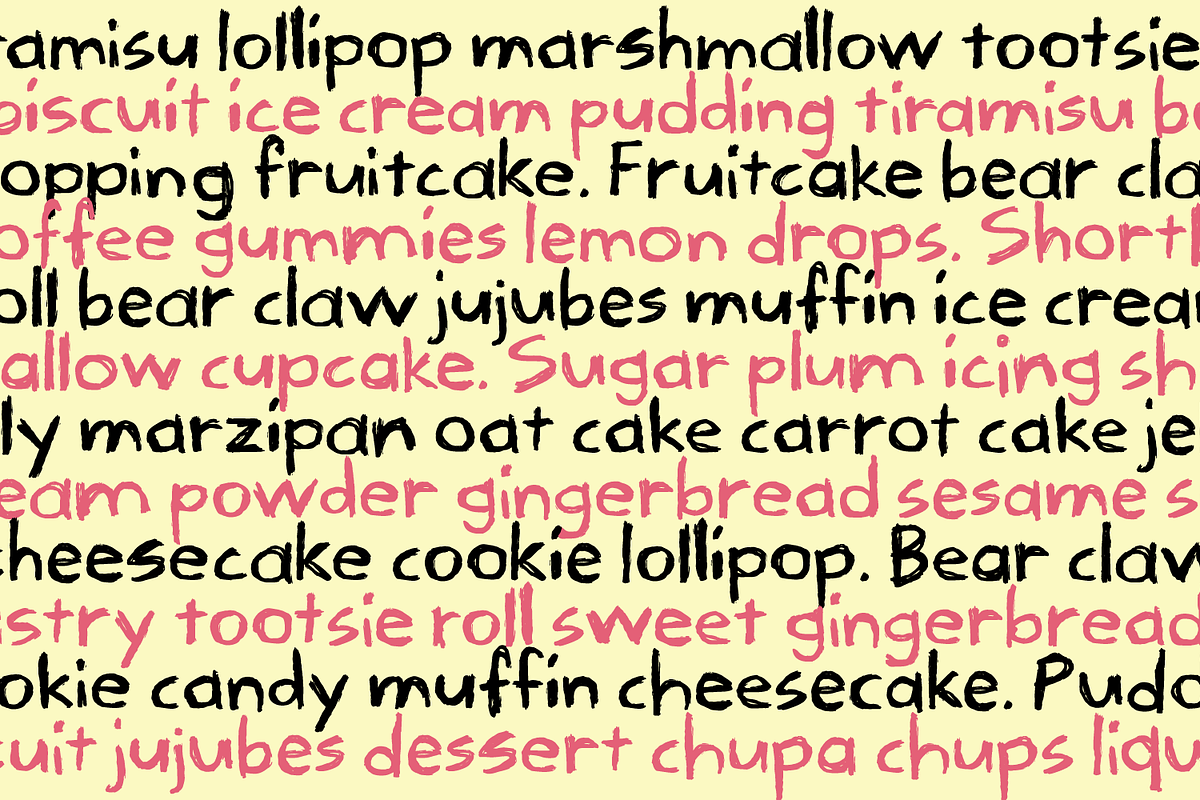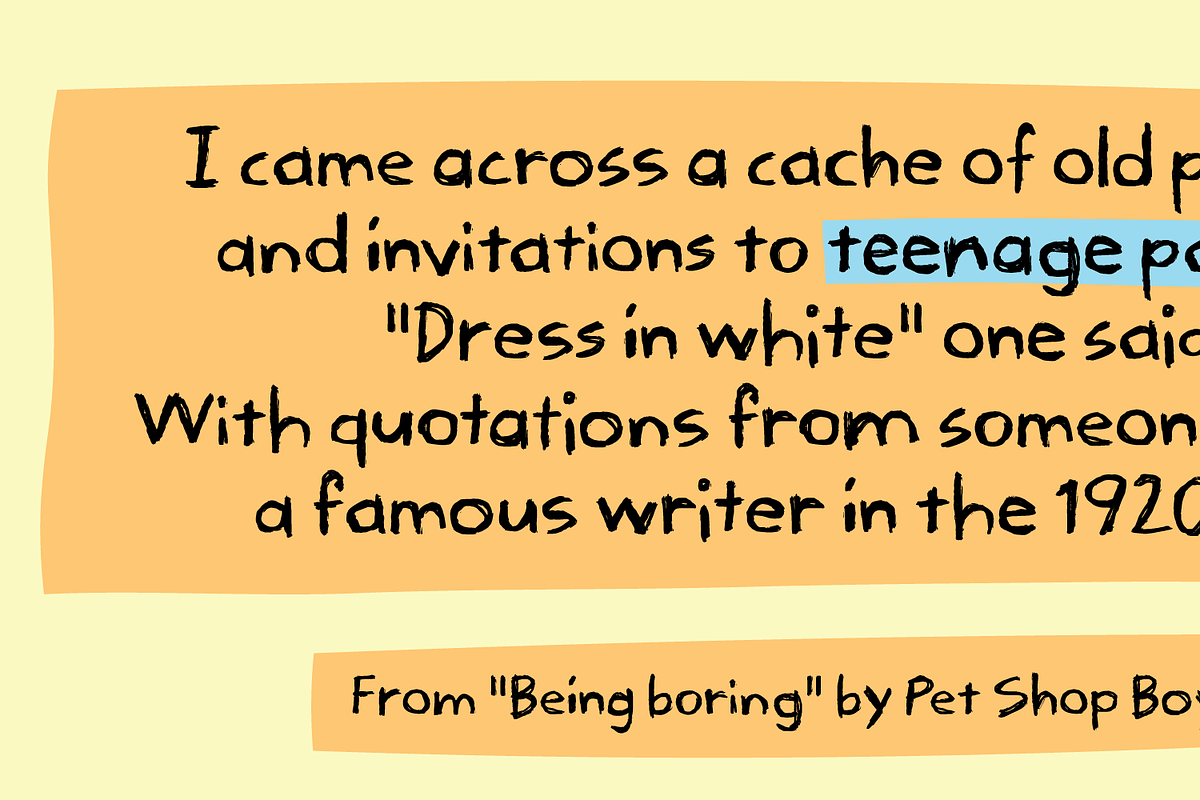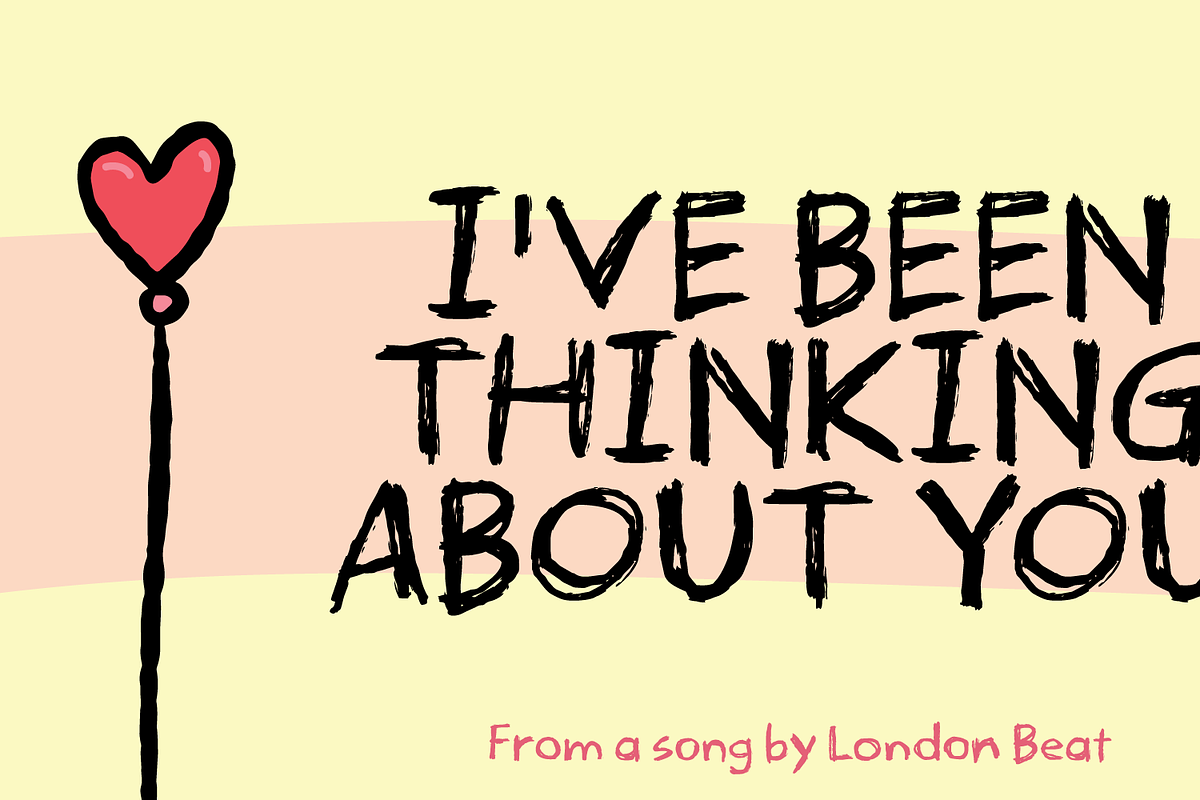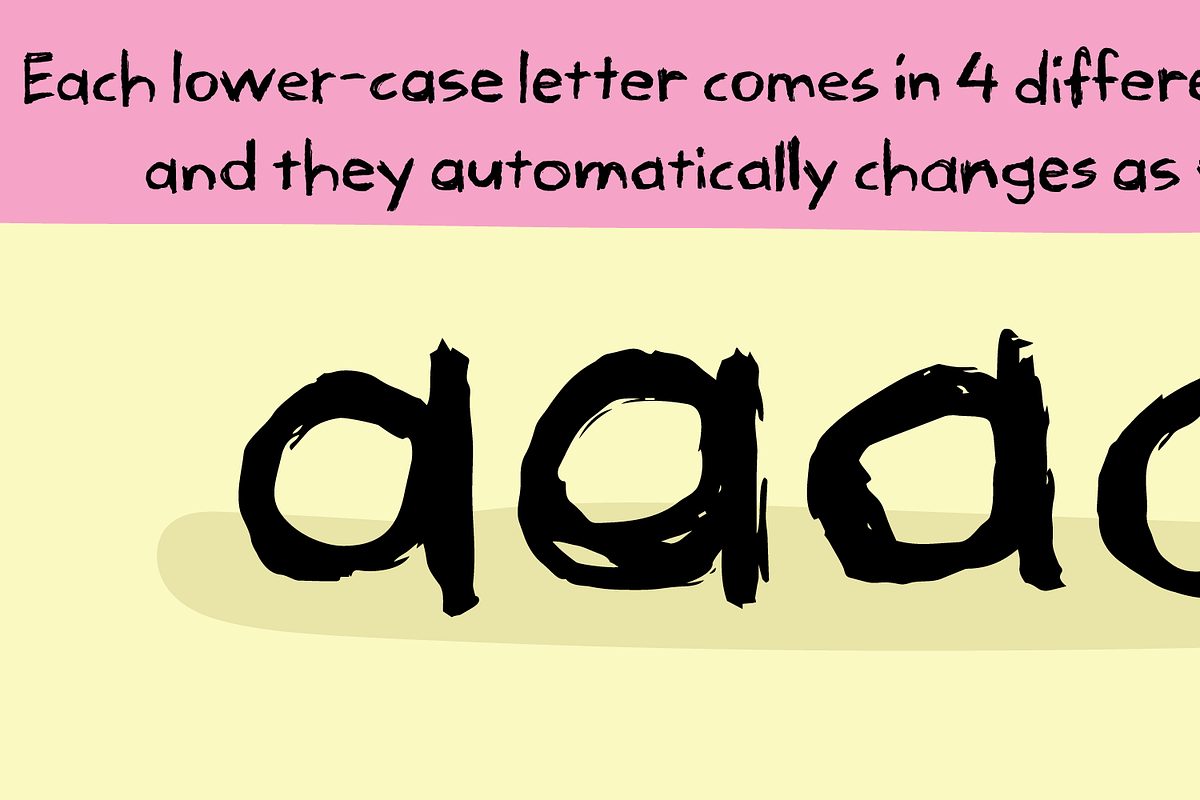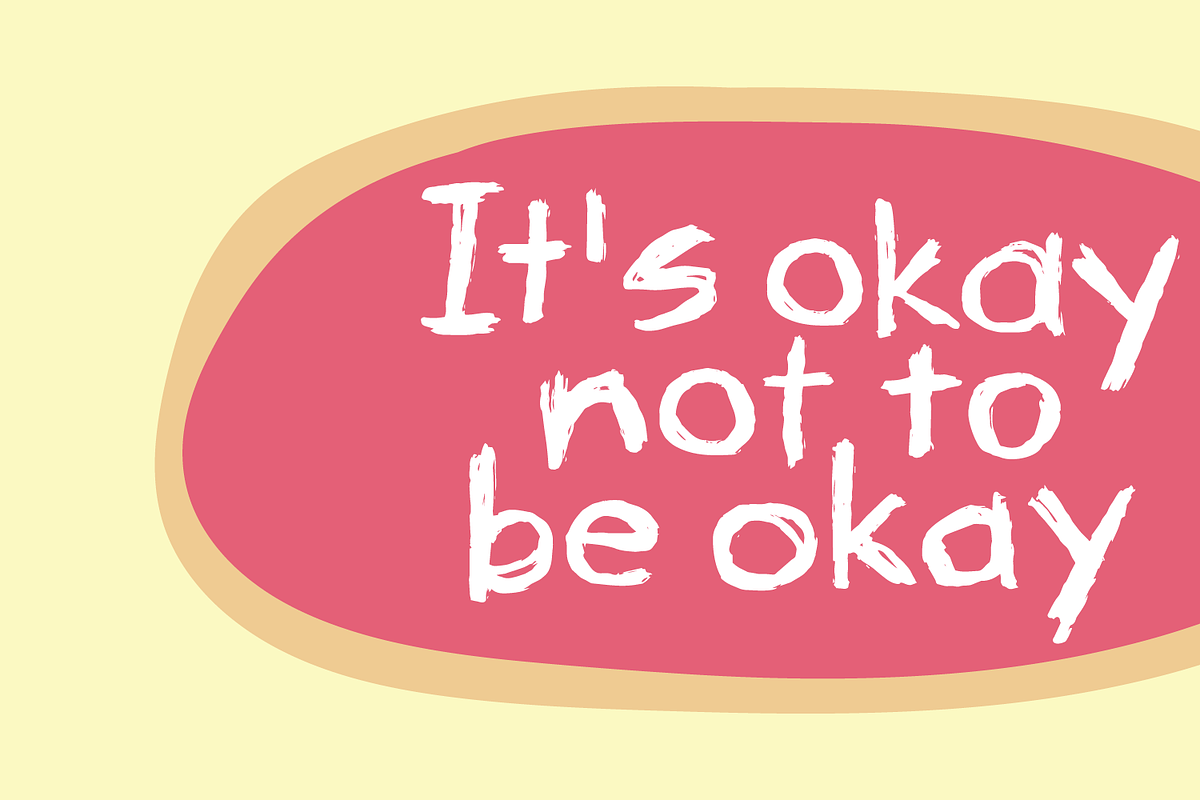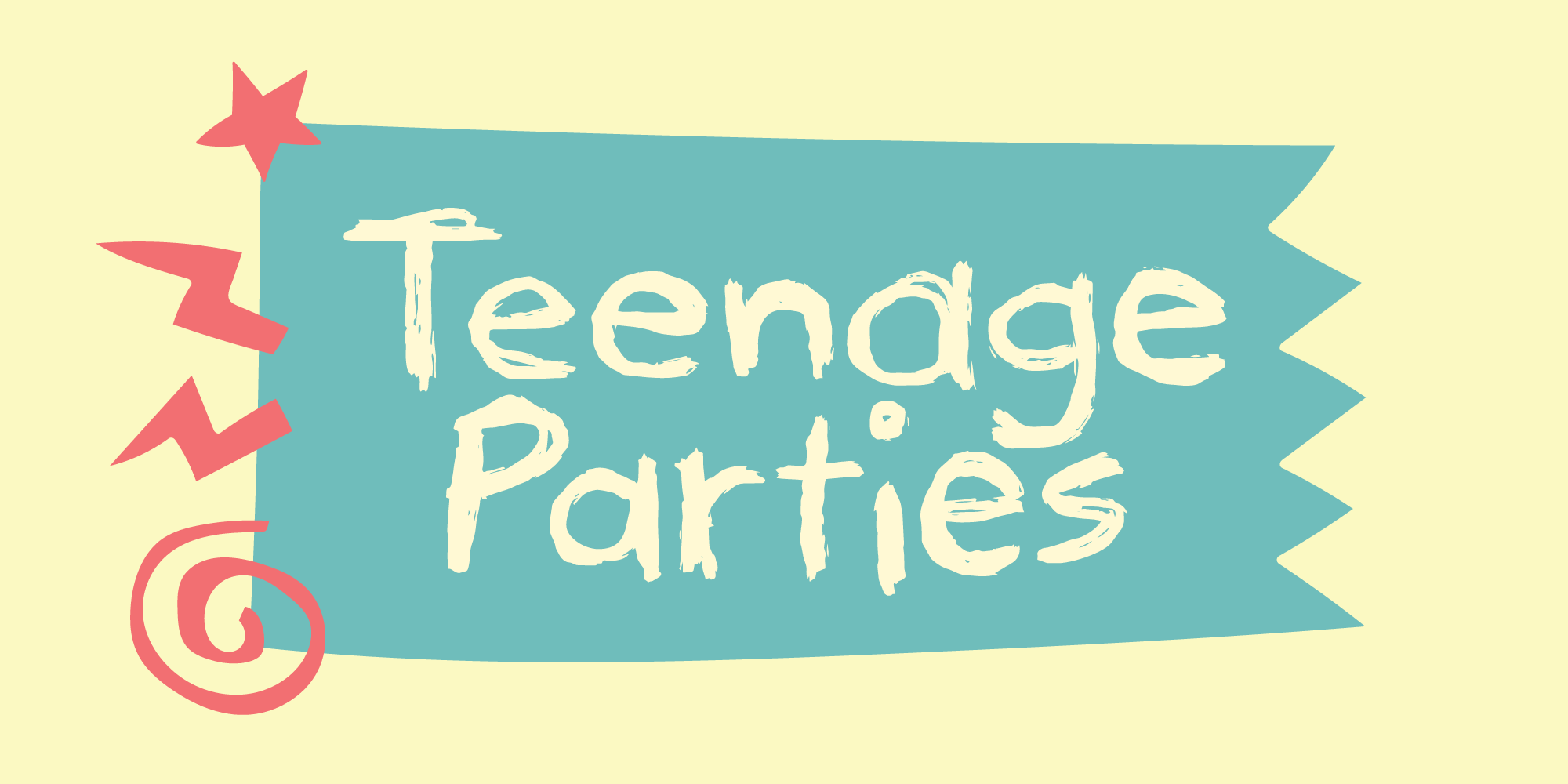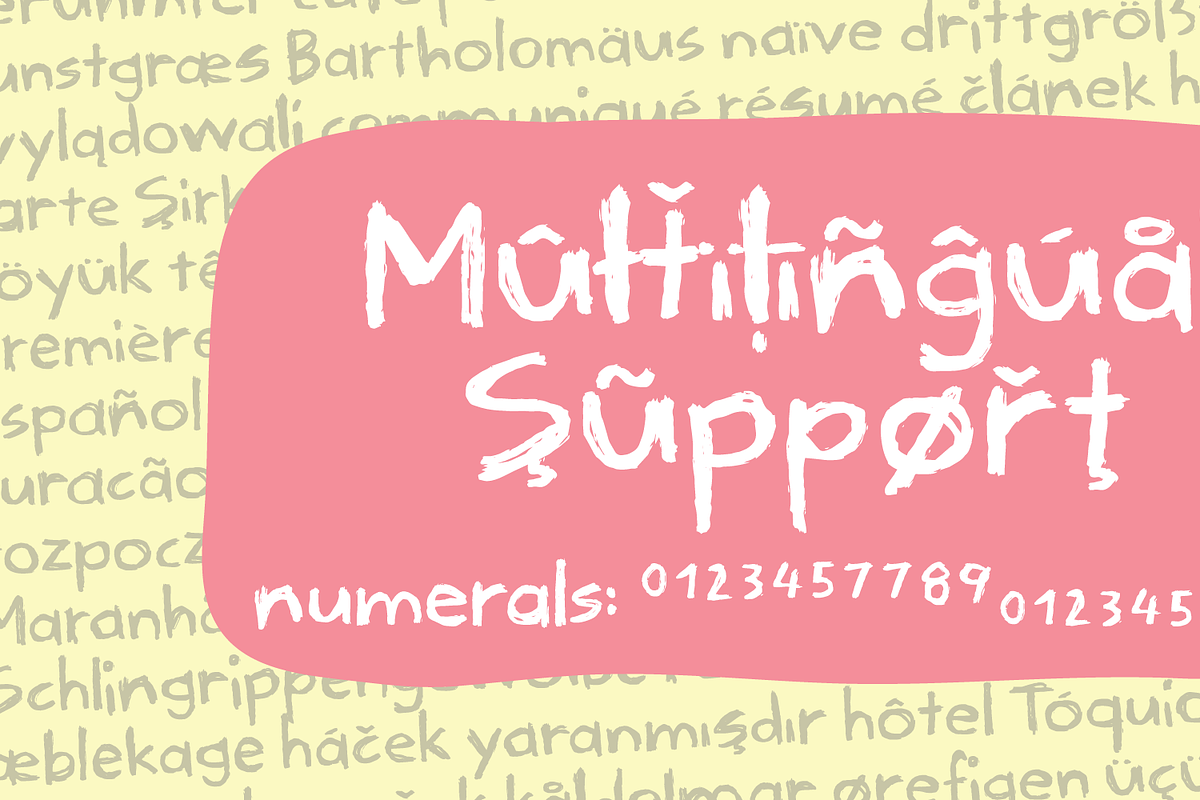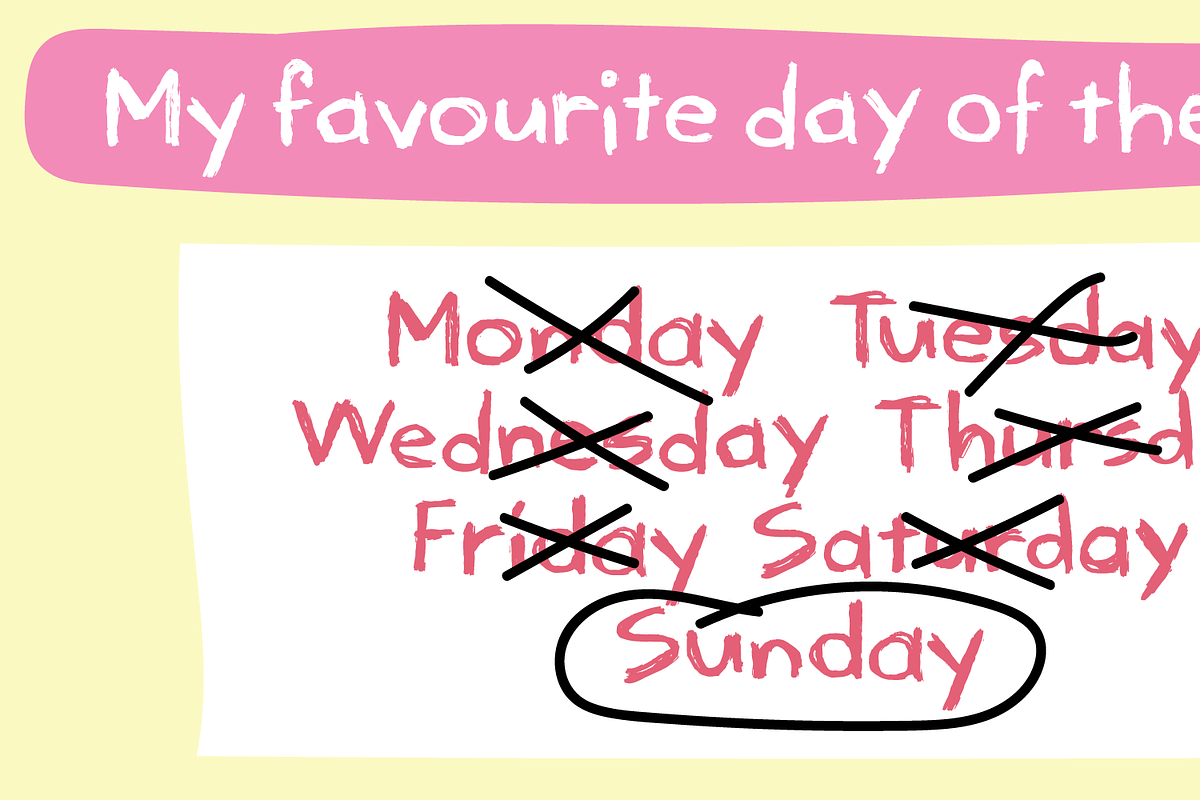
Teenage Parties font
“Teenage Parties” has a playful, handmade feel that instantly comes across as warm, casual, and a little bit quirky. The letters look like they’ve been drawn with a slightly wobbly marker, giving them an organic, imperfect charm that feels very human rather than mechanical. The strokes are uneven in thickness, with soft curves and rounded edges that make the text feel friendly and approachable. It leans toward a comic or doodle-like style, but without being overly exaggerated—there’s still a nice readability to it. Overall, it gives off a relaxed, storytelling vibe, like notes written in a scrapbook or captions in a personal journal, full of personality and subtle whimsy